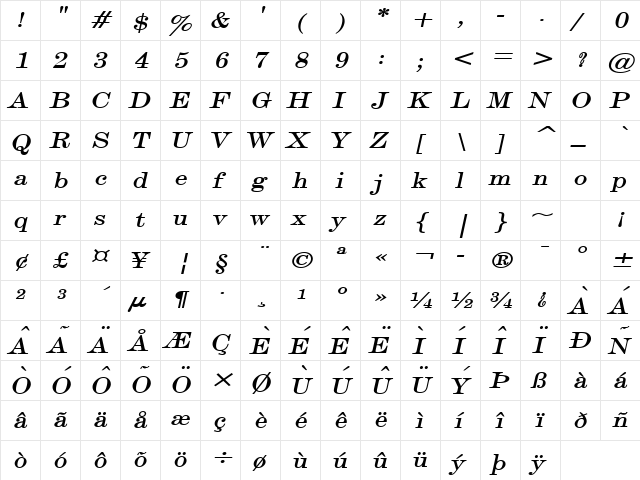
Devine Wide BoldItalic Font Preview
Design Context for Devine Wide Typeface
Devine Wide takes a measured approach to typography — its balanced proportions and neutral character make it a reliable workhorse for both digital and print work. The slanted form adds forward momentum and visual energy. The heavy weight commands attention and anchors typographic hierarchies.
Pro Tip: Try Devine Wide for annotation and caption copy alongside an upright companion — the contrast in angle creates a dynamic but ordered typographic system.